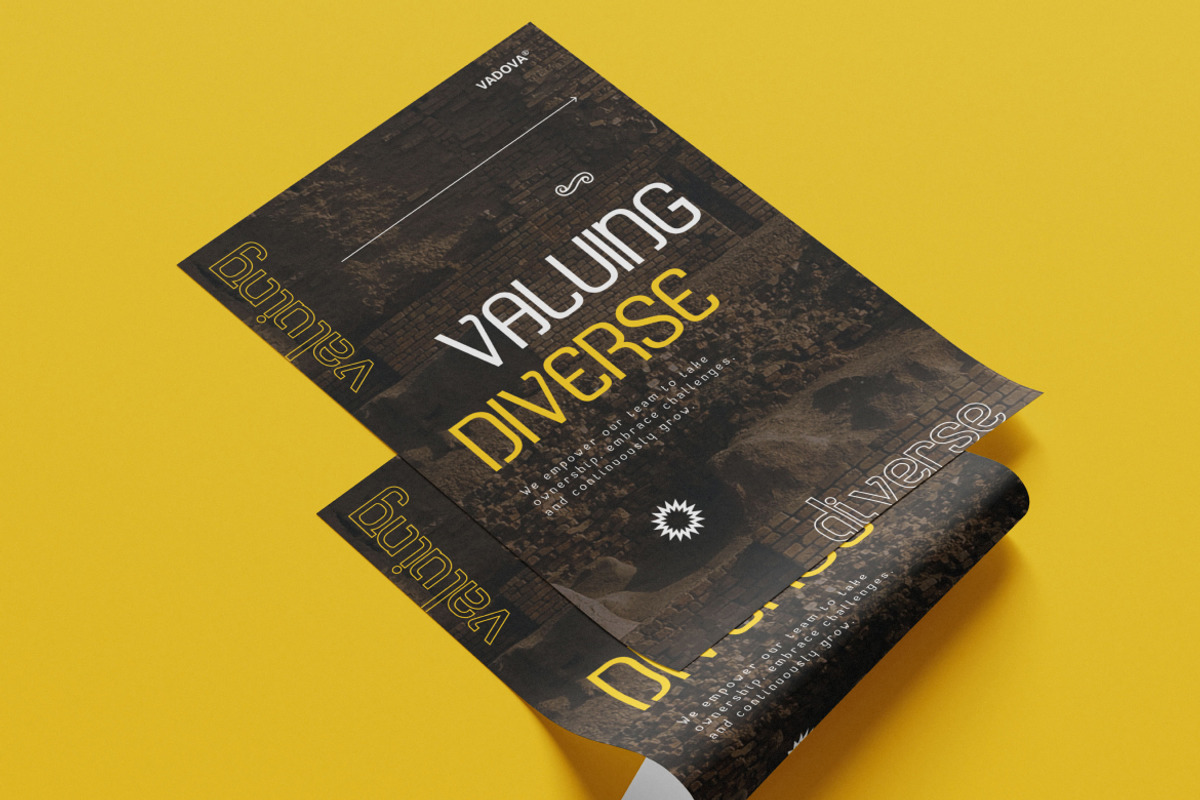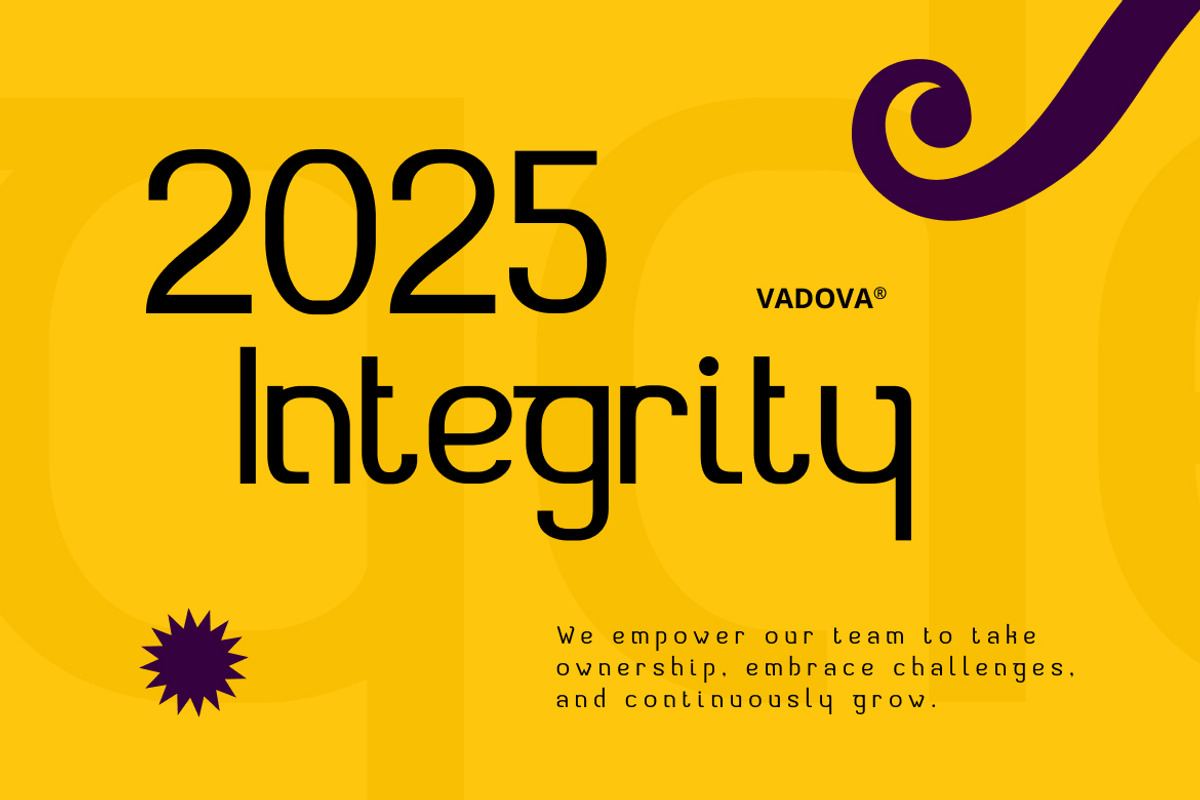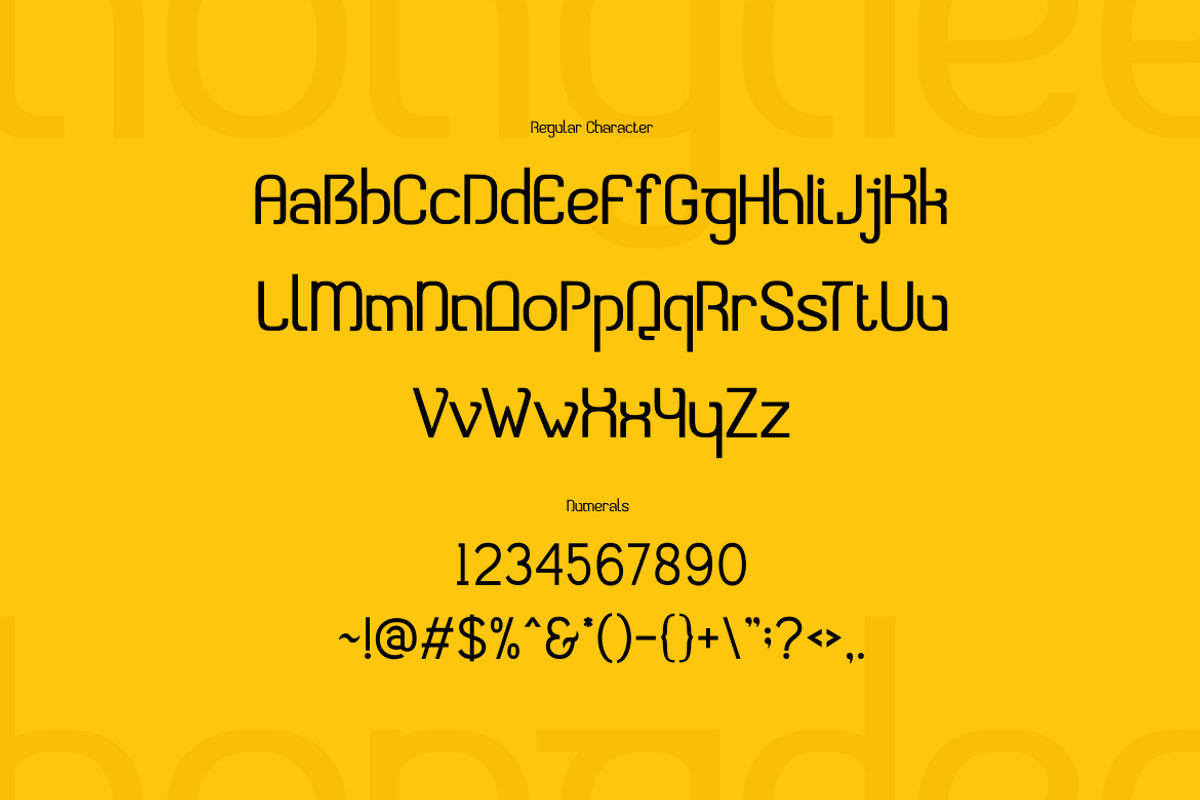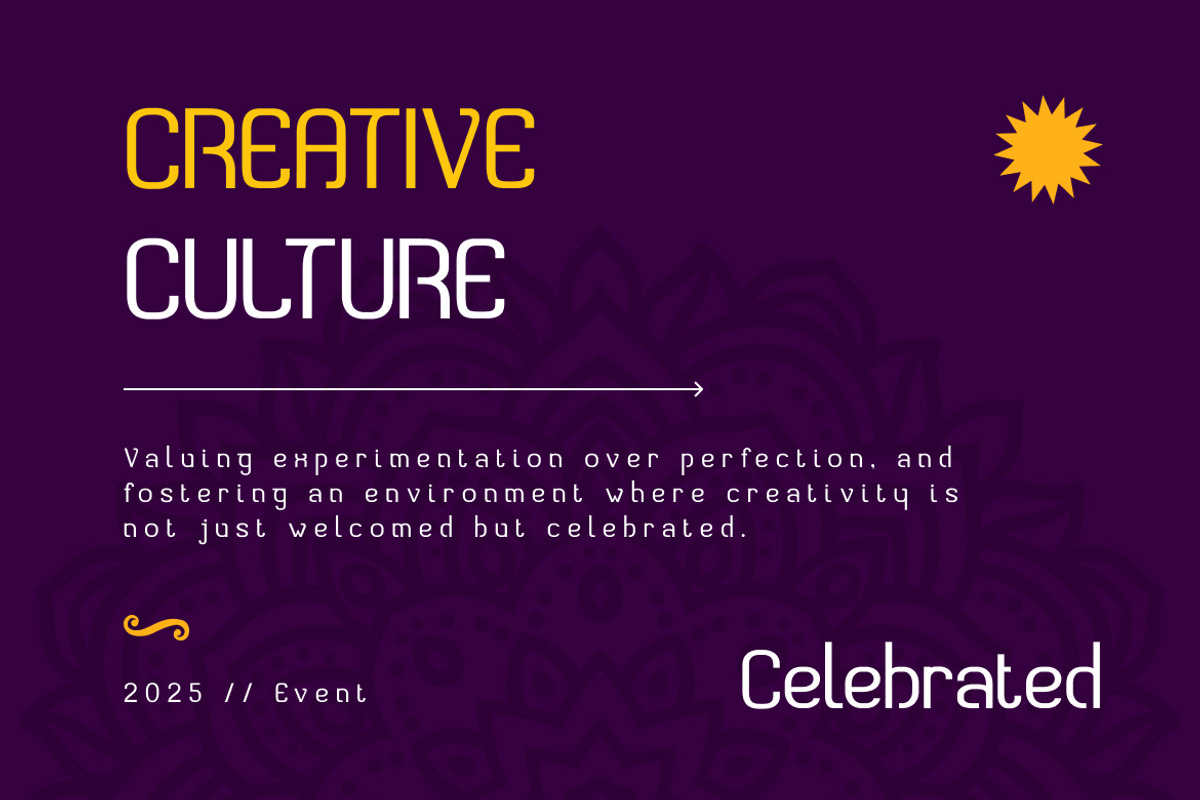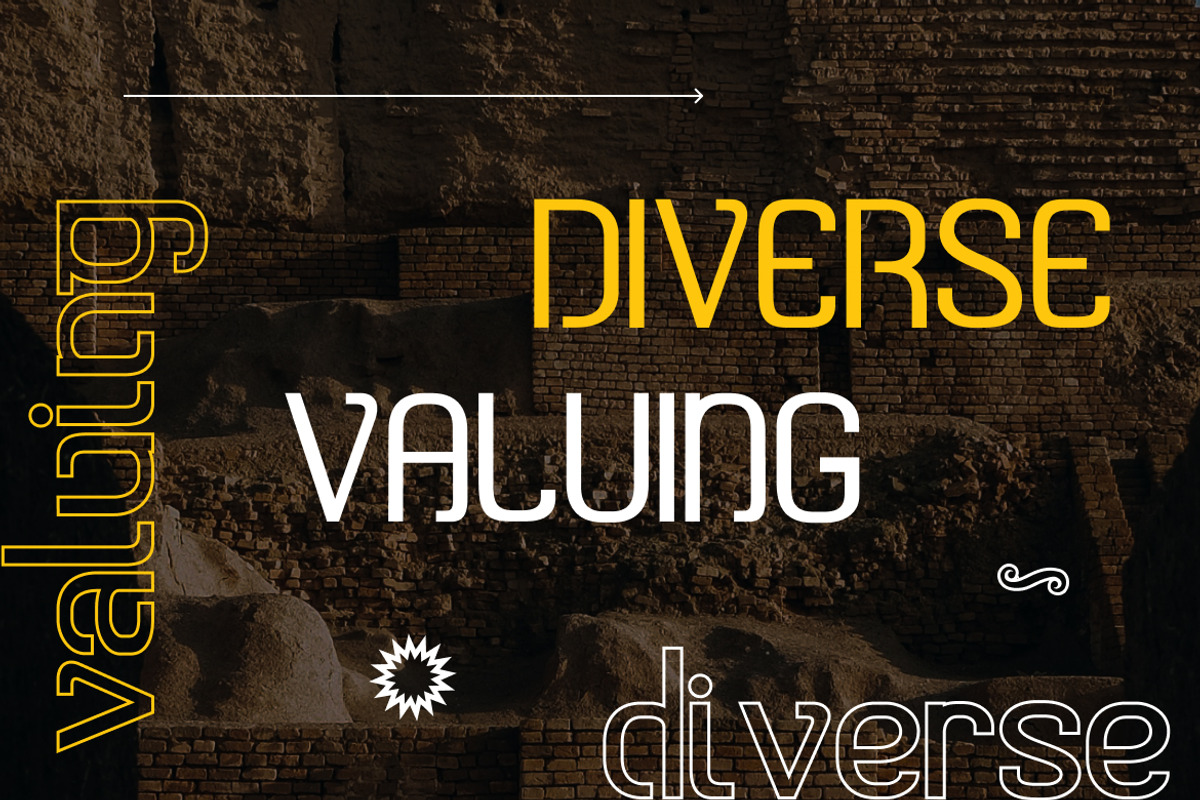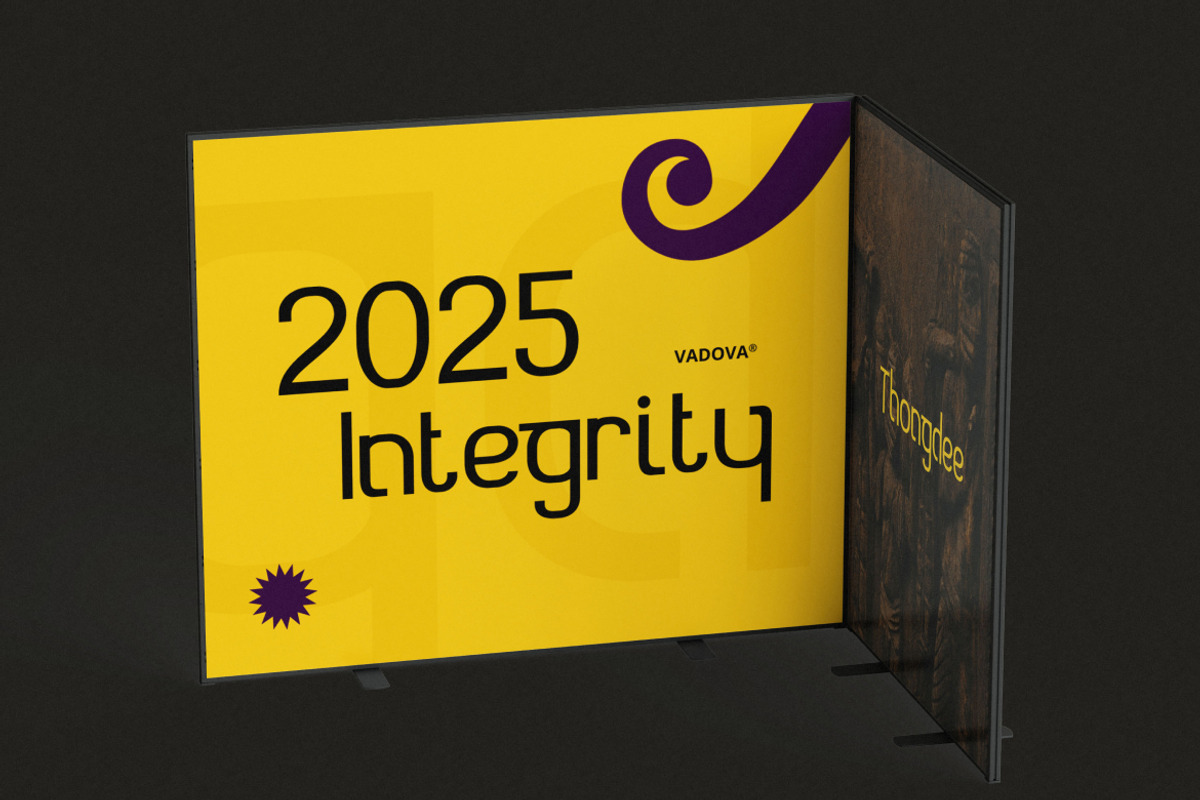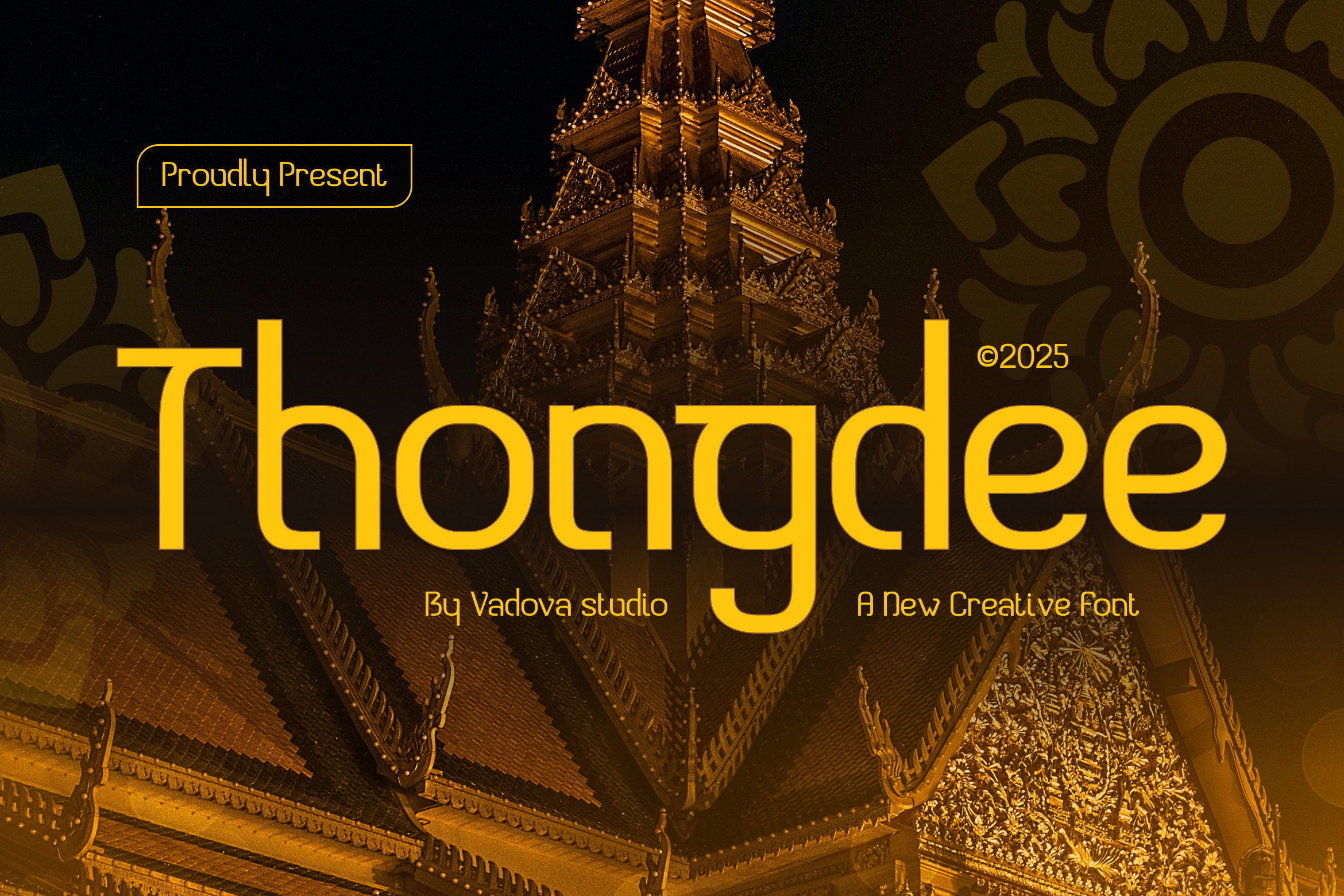
Thongdee Creative Font
Thongdee is a contemporary display font inspired by Thai cultural motifs, merging modern geometric forms with subtle Southeast Asian design influence. Featuring a clean yet unique character set, this typeface is perfect for branding, logos, headlines, and creative projects that seek to convey innovation with cultural depth. It includes uppercase, lowercase, numbers, punctuation, and multilingual support.
Thongdee is a fresh solution for projects that aim to blend modernity with cultural roots. Its aesthetic appeal and readable structure make it ideal for branding projects, digital marketing, app interfaces, creative posters, and editorial design that want to infuse personality with cultural resonance. Especially suitable for Southeast Asian-themed visuals, innovative startups, or global campaigns that want to stand out.
- Rounded sans serif with a distinctively Thai-inspired character twist
- Stylized terminals and geometric counters for a clean, modern feel
- Balanced proportions and smooth strokes for improved legibility
- Unique letterform cuts to enhance visual rhythm and brand identity
- Versatile weight and shape ideal for logos, titles, and display use
- Brand identity systems aiming for a calm yet confident tone
- UI/UX design kits for modern tech products and mobile interfaces
- Editorial layouts, minimalist magazines, and long-form content
- Sleek product packaging and label designs with clean aesthetics
- Social media templates and digital marketing assets
Elevate your brand with Thongdee blends heritage with bold design